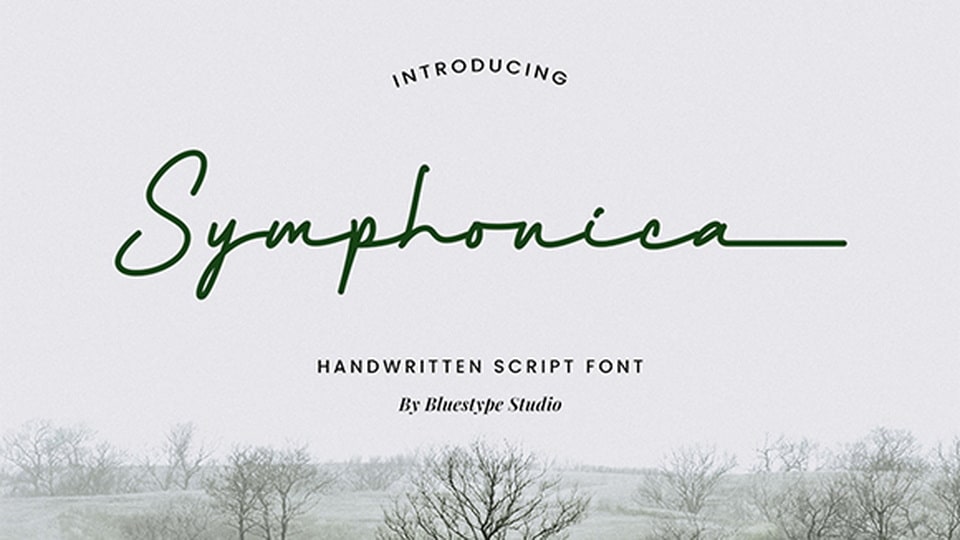
Download Symphonica font, a timeless handwritten typeface that exudes elegance and sophistication inspired by the fluid beauty of classic penmanship.